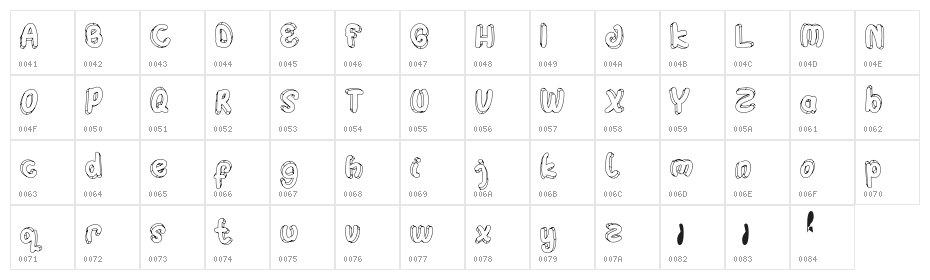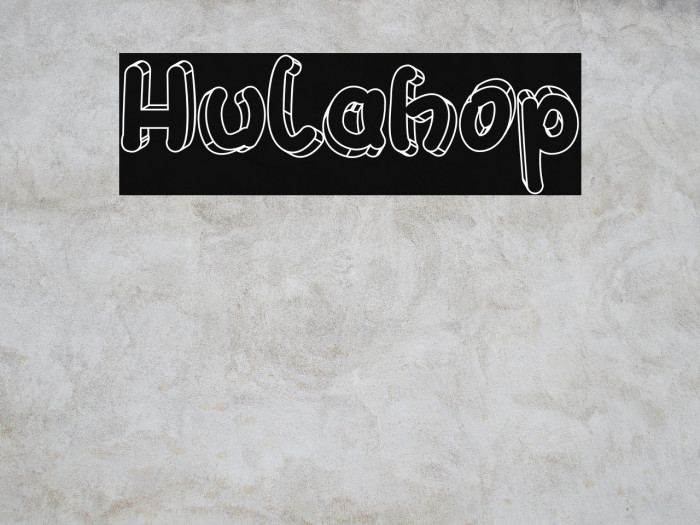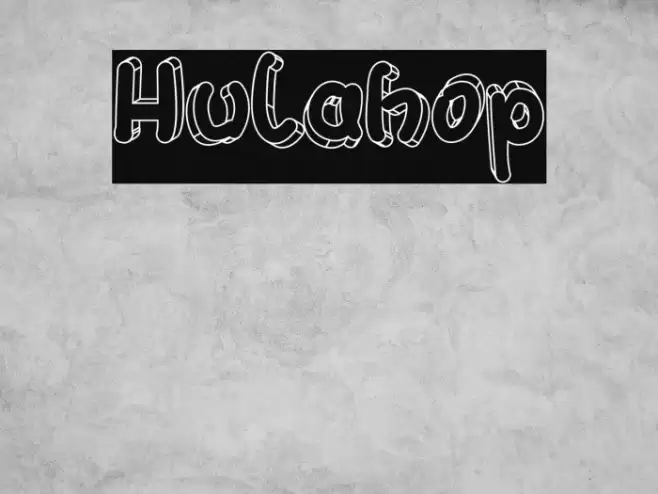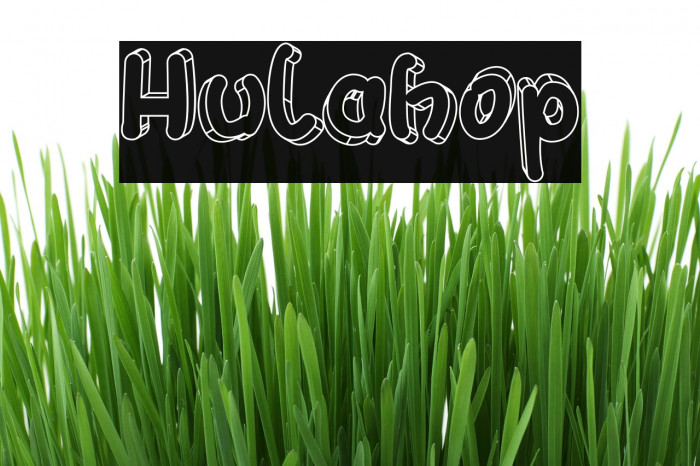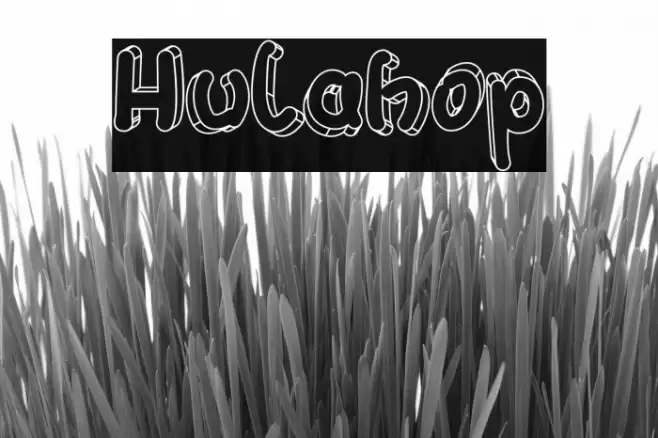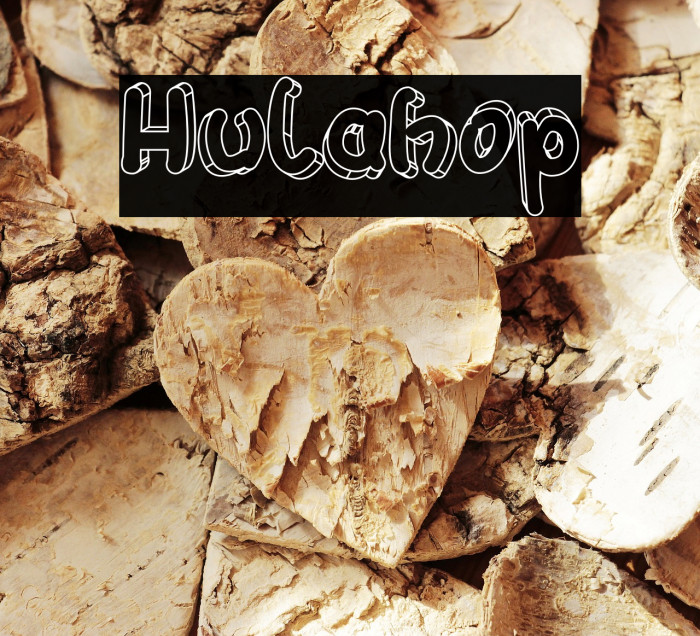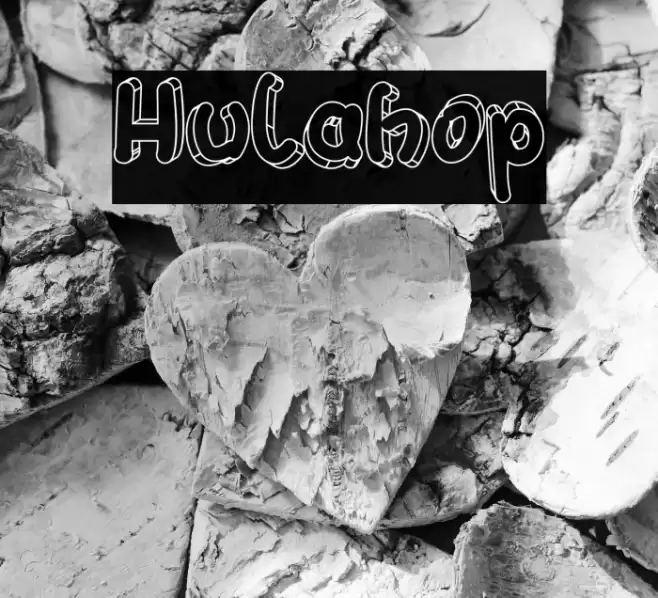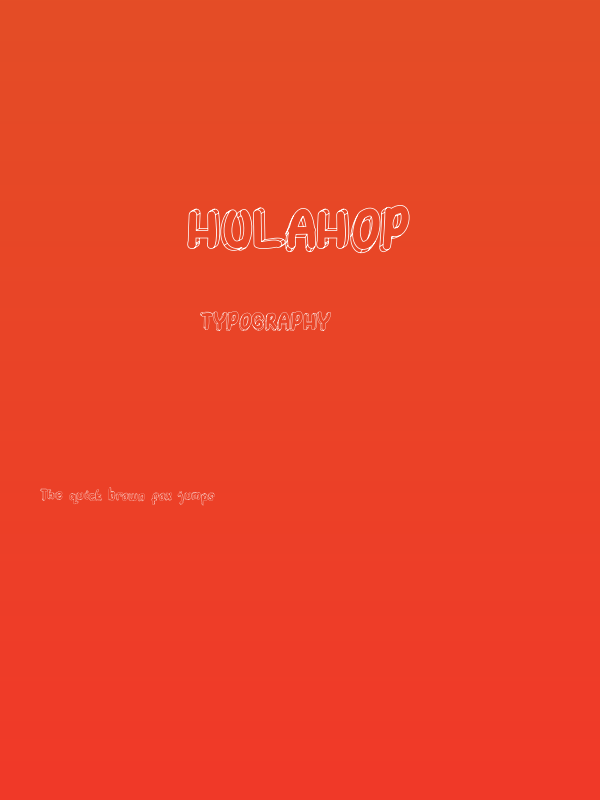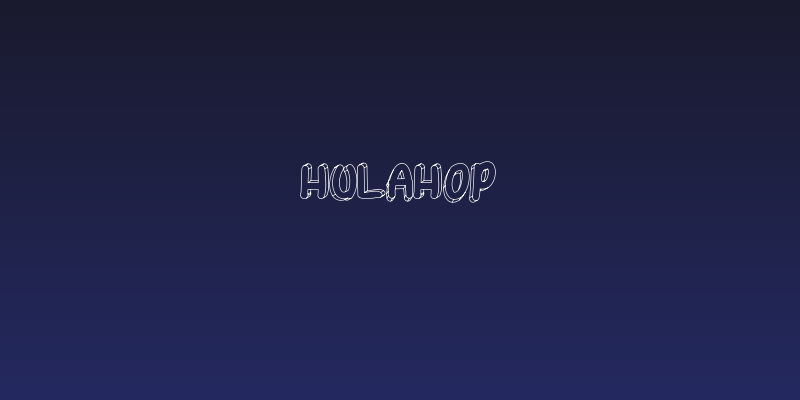
Hulahop Font
Hulahop Description
This playful and whimsical font features a unique 3D effect, with each letter appearing as if it's crafted from a twisted ribbon or hoop. The bold outlines and rounded edges give it a friendly and approachable feel, making it ideal for creative and fun projects. The uppercase and lowercase letters maintain a consistent style, with a slight variation in size and shape that adds to the font's charm. The numbers and special characters are designed to match the overall aesthetic, ensuring a cohesive look across all text elements. This font is perfect for projects that require a touch of creativity and lightheartedness.
| Overall Style | Playful, Whimsical, Creative |